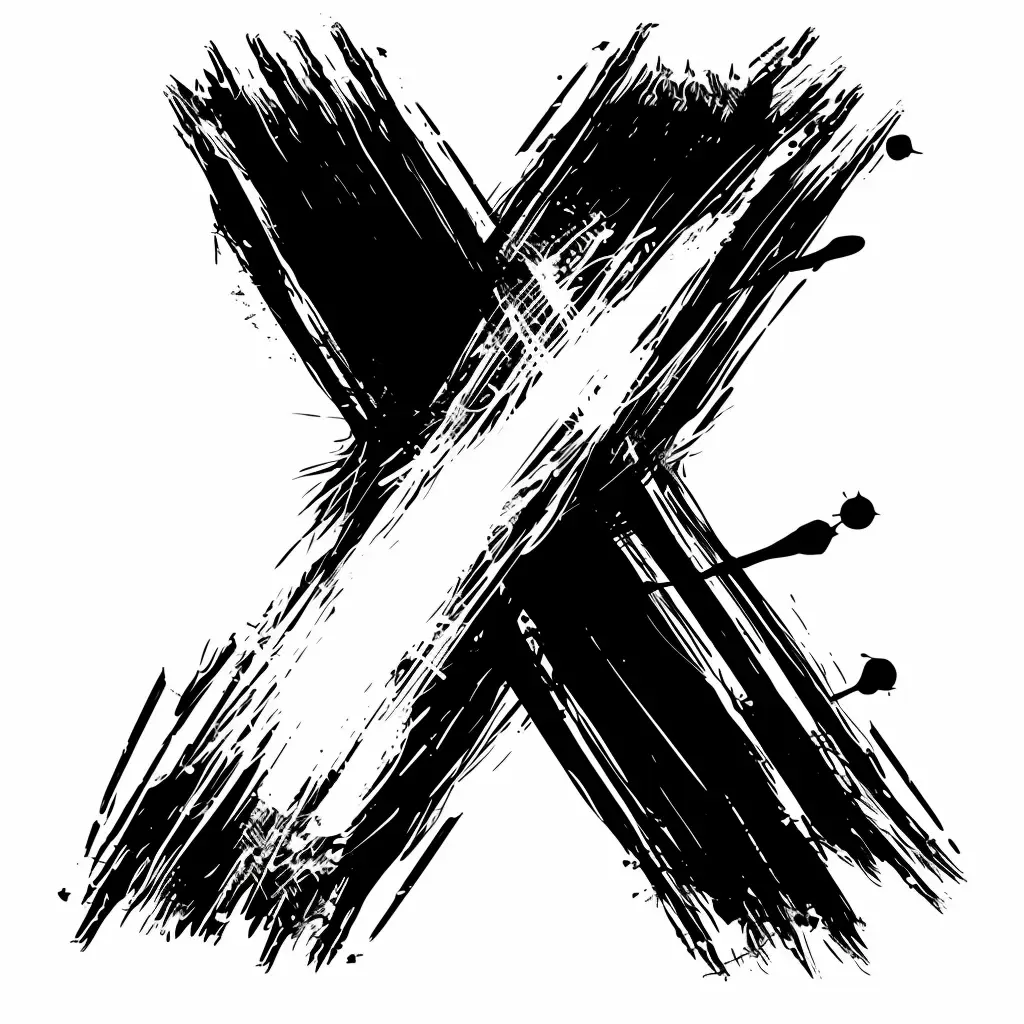
This image features a bold, stylized letter "X" rendered in a rough, brushstroke-like black and white design. The subject is a grungy, textured "X" with uneven, splattered edges and small ink droplets, creating a dynamic, artistic effect. The high-contrast black and white color scheme emphasizes the raw, hand-drawn aesthetic of the composition.